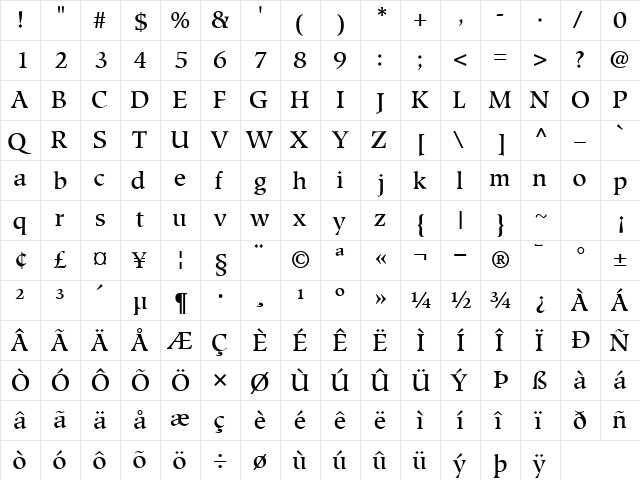
GlossaryMediumSSK Regular
Design Context for GlossaryMediumSSK Typeface
GlossaryMediumSSK is a composed and adaptable typeface that performs quietly and consistently across a wide range of design contexts.